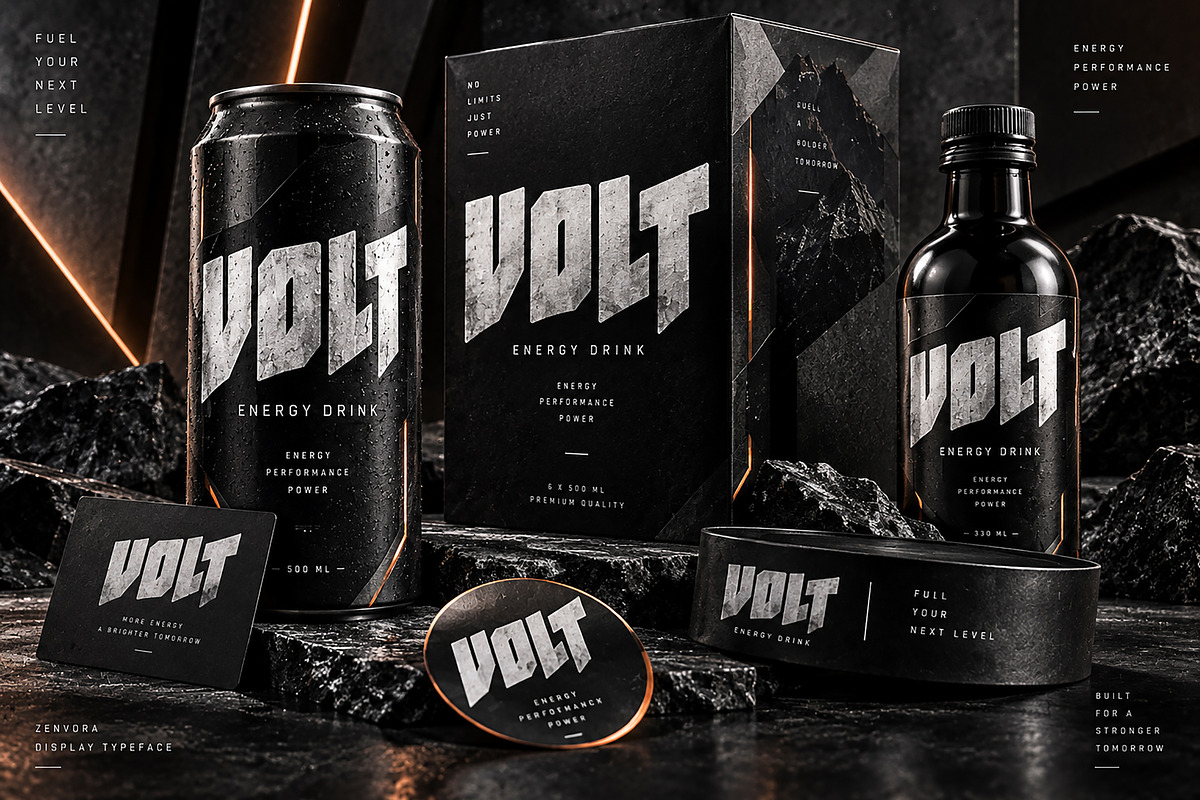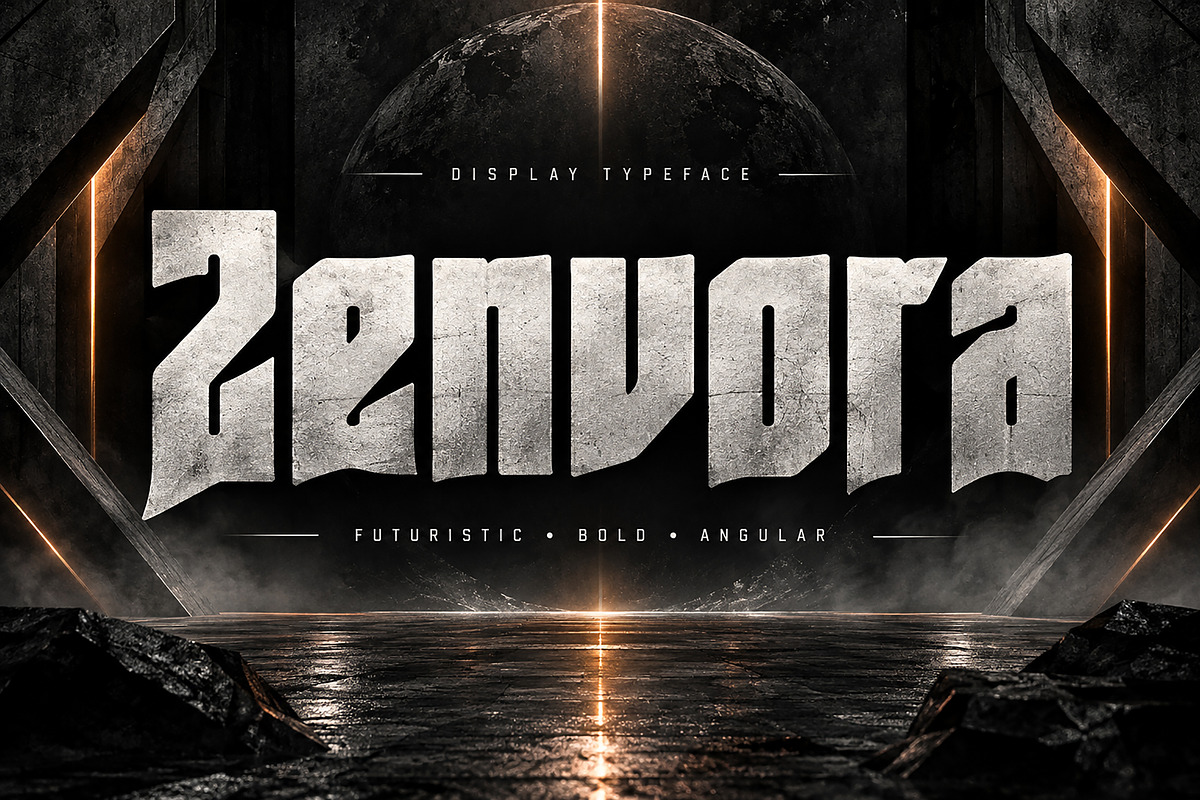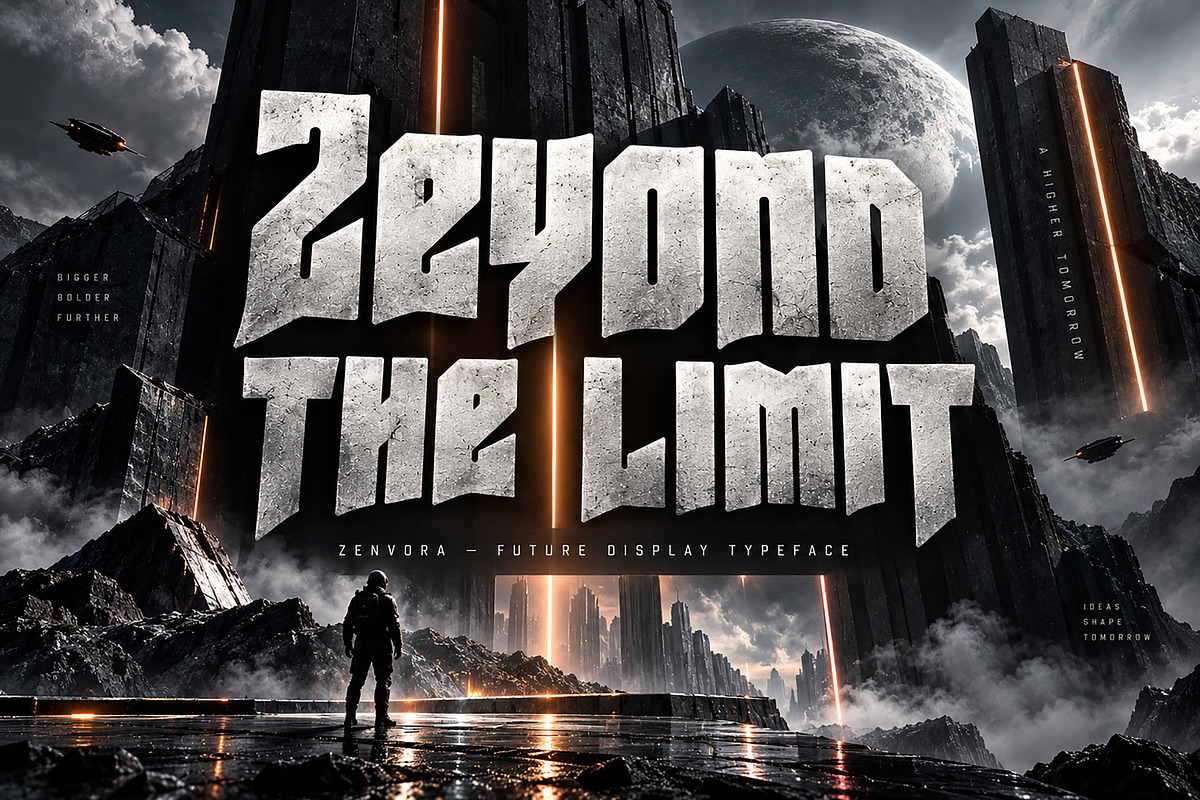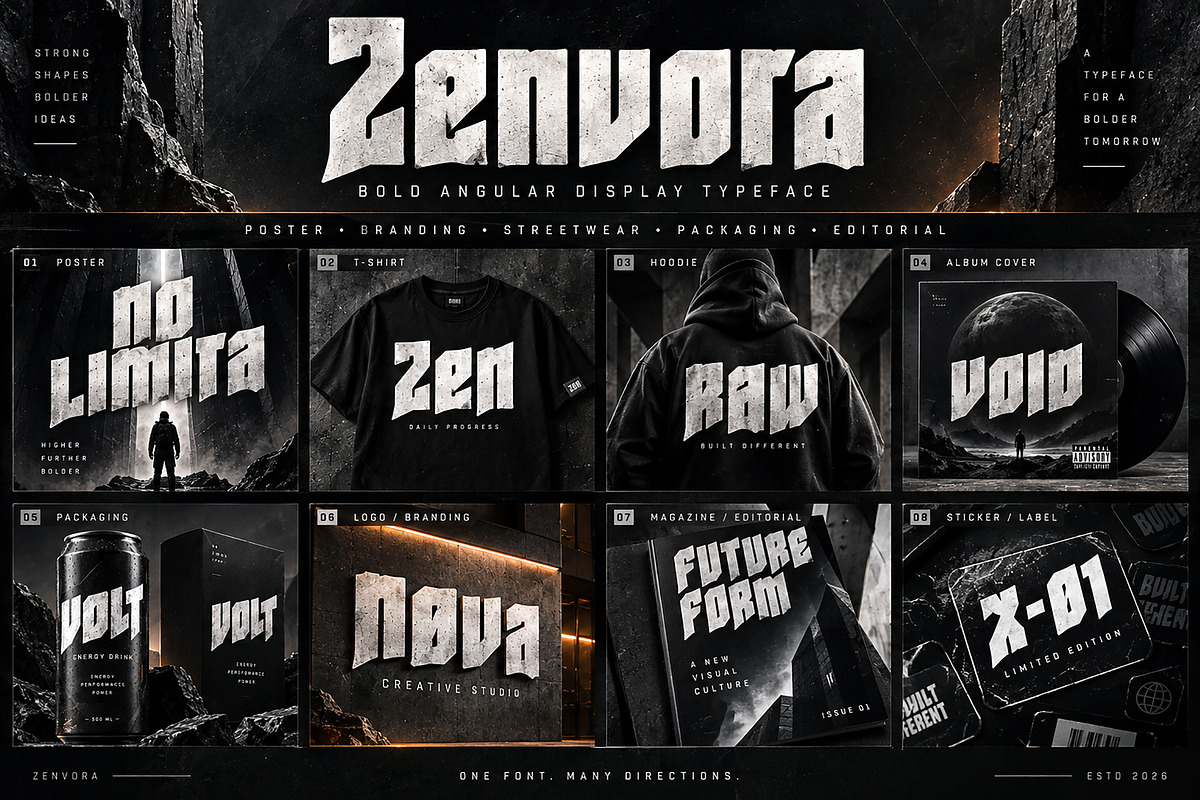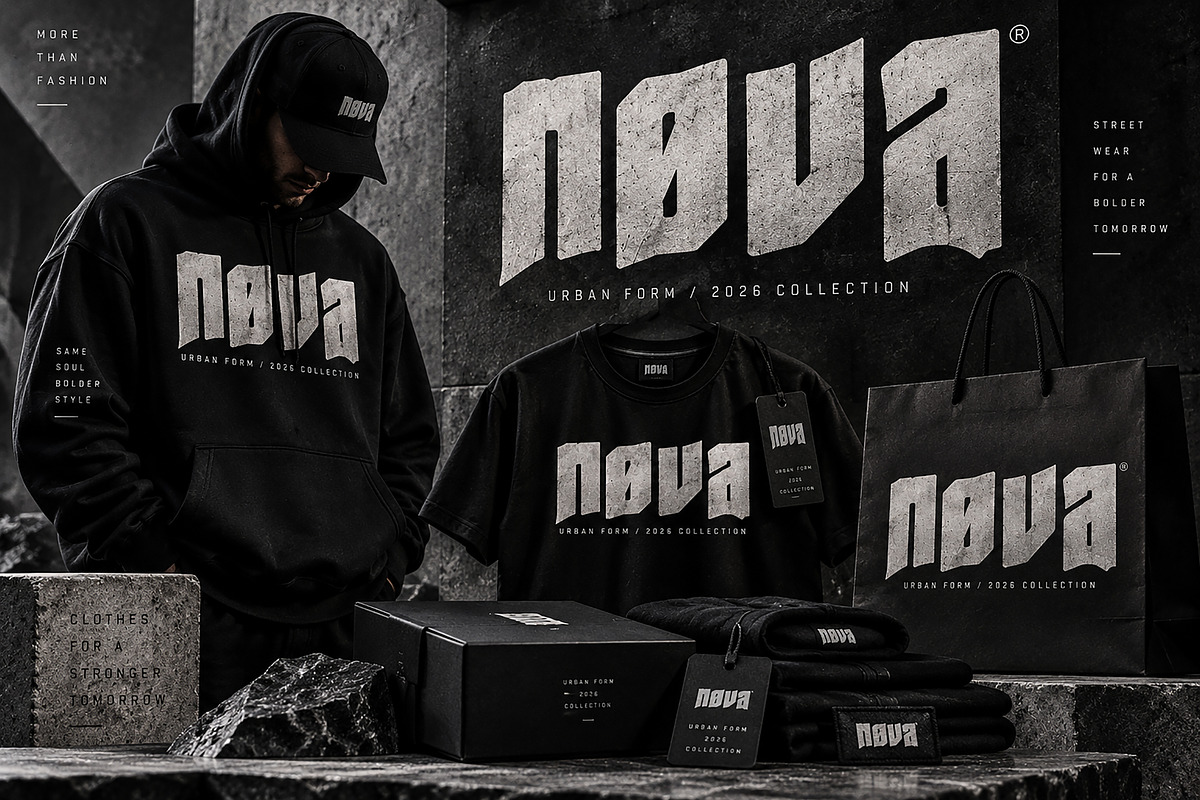
Zenvora
Zenvora is a stylish and distinctive display typeface created to bring personality, character, and visual impact to modern design projects. With its expressive letterforms and strong display presence, Zenvora is ideal for designers looking to create memorable typography for branding, posters, apparel, packaging, editorial layouts, and promotional graphics.
Designed to stand out at larger sizes, Zenvora works beautifully for bold headlines, logos, titles, campaign graphics, and creative compositions. Its versatile character makes it suitable for both contemporary and experimental design directions.
Logo & Brand Identity
Posters & Headlines
Apparel & Streetwear
T-Shirt & Merchandise Design
Fashion Graphics
Album & Music Artwork
Packaging & Product Branding
Advertising & Promotional Designs
Editorial Design
Magazine Covers
Event & Campaign Designs
Signage & Titles
Creative Typography
Modern Graphic Design
Distinctive Display Style
Strong Visual Presence
Expressive Letterforms
Suitable for Headlines & Titles
Great for Branding & Logo Concepts
Versatile for Print and Digital Projects
Designed for High-Impact Typography
Font Type: Display Typeface
Zenvora is a great choice for designers who want expressive, memorable, and attention-grabbing typography across a wide range of creative projects.